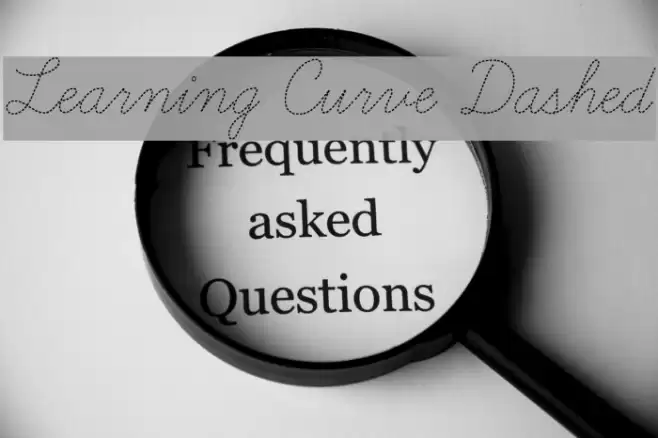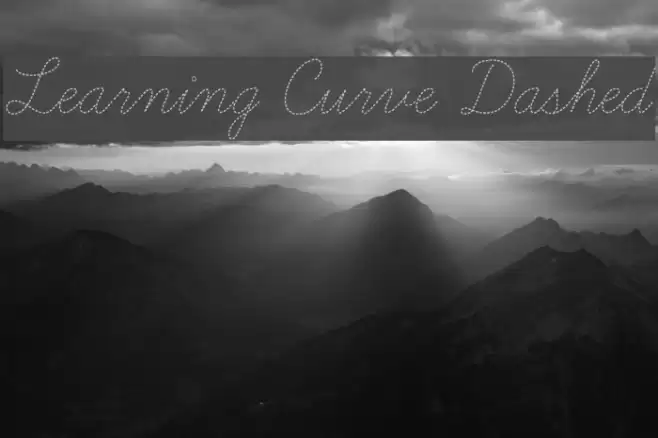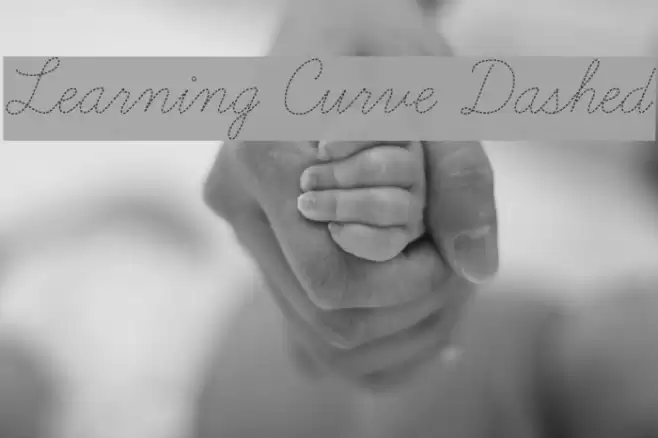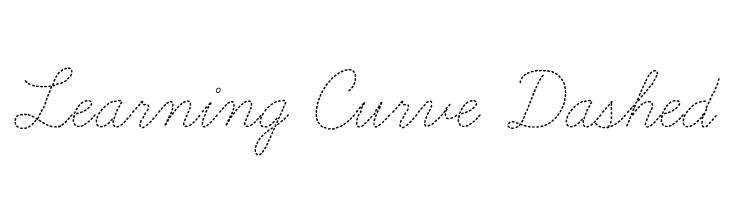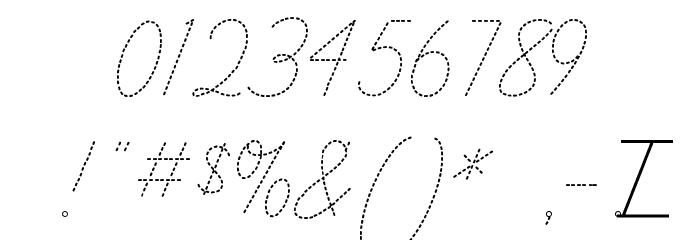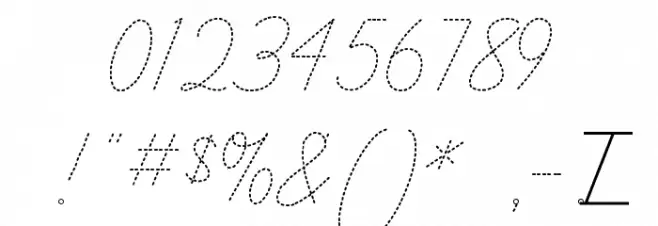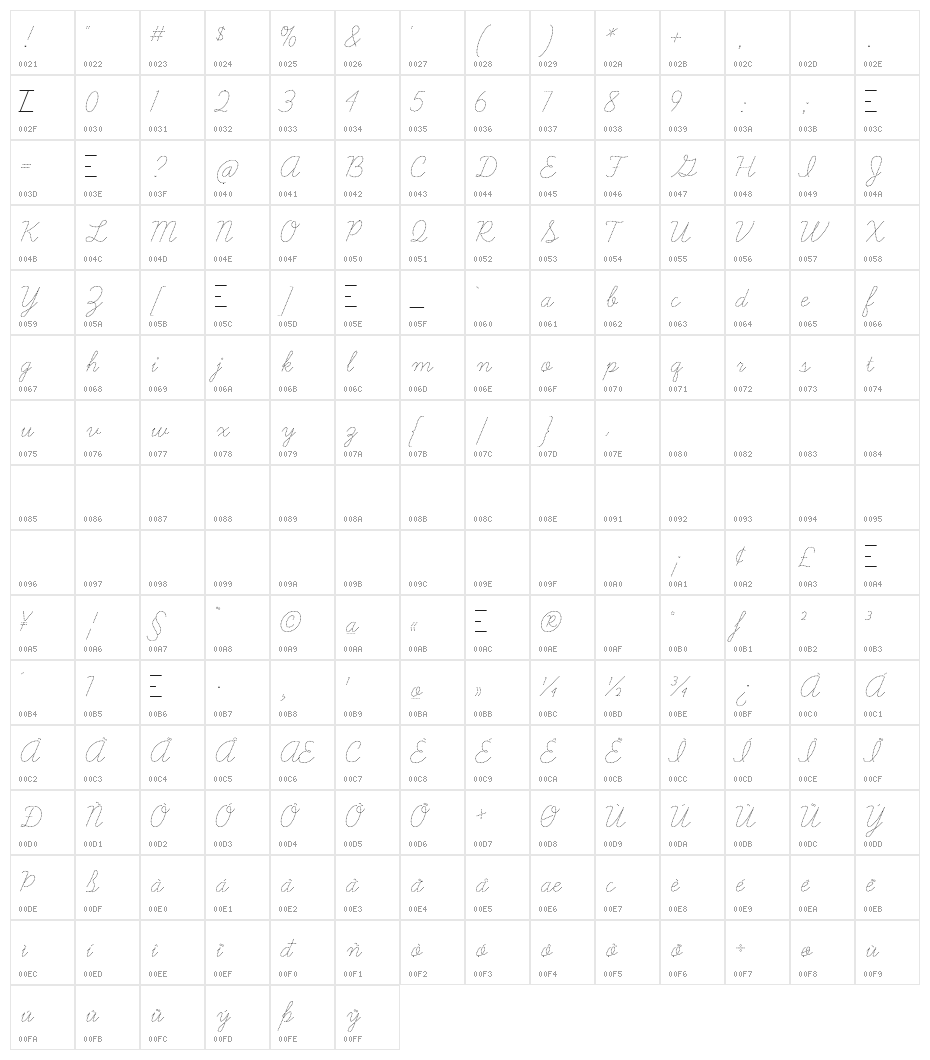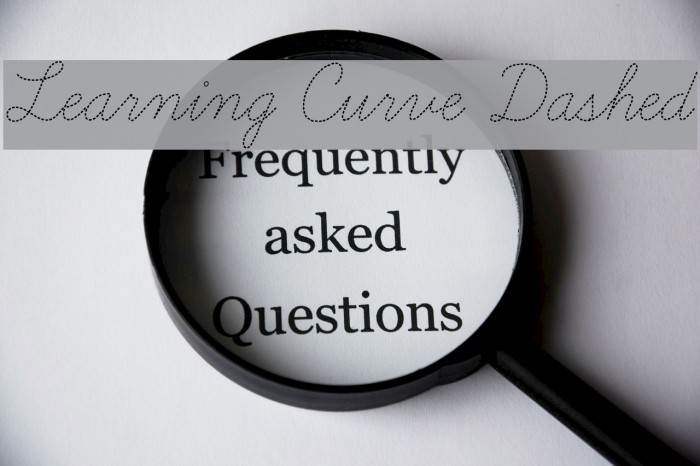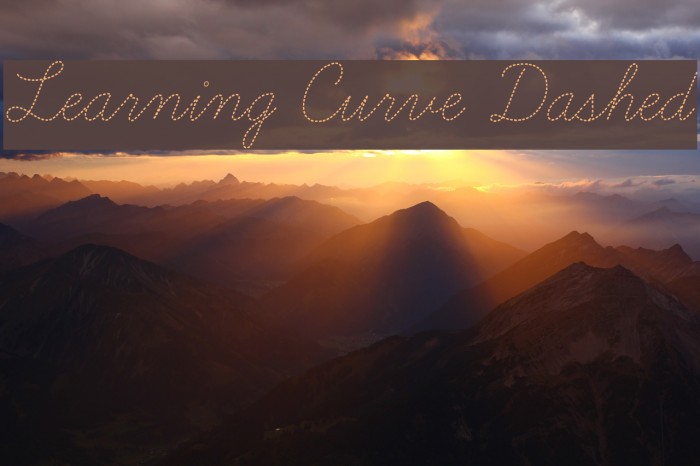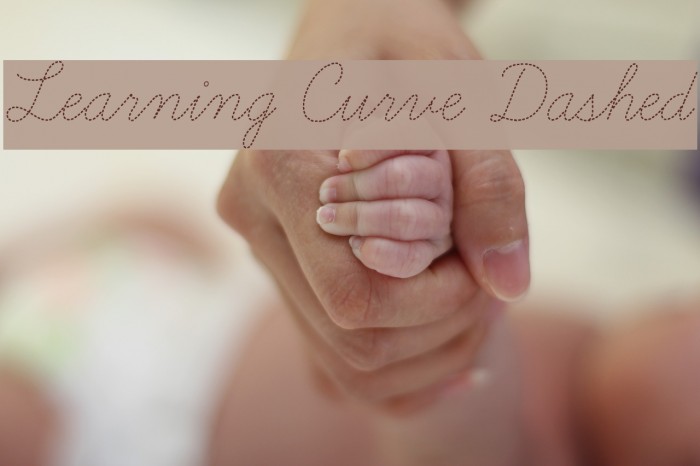
Learning Curve Dashed Font
Learning Curve Dashed Description
This font features a unique dashed line style, reminiscent of handwriting practice sheets. Each character is composed of evenly spaced dots, creating a playful and educational aesthetic. The uppercase and lowercase letters maintain a consistent slant, enhancing the cursive, flowing nature of the design. Numbers and special characters are also included, following the same dotted pattern. This font is ideal for educational materials, especially those aimed at teaching handwriting skills. Its distinct style makes it stand out, while the dotted lines provide a guide for learners to trace and practice their writing.
A dotted, cursive-style font ideal for educational purposes from Handwritten fonts.
- Proposed Projects: Perfect for educational worksheets, children's books, and handwriting practice materials.
- Weight: Light
- Overall Style: Educational, Playful
- Use Case: Educational materials, Handwriting practice